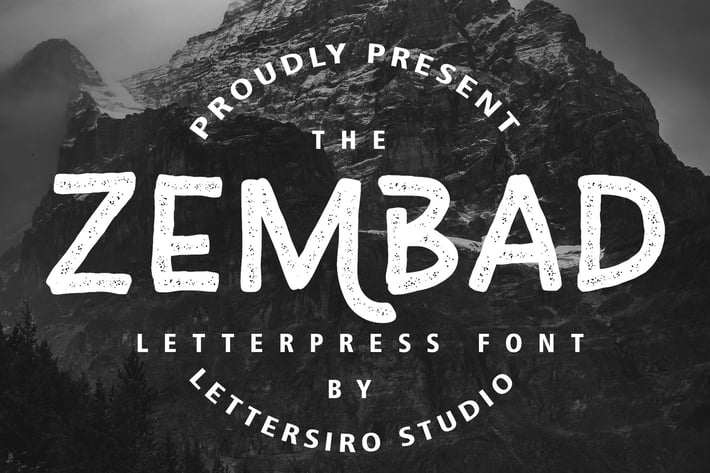
Zembad Vintage Font
Zembad Font is vintage letterpress font, perfect for any vintage design, apparel, motor club, signage, cafe, logo and much more
- Stylistic alternate